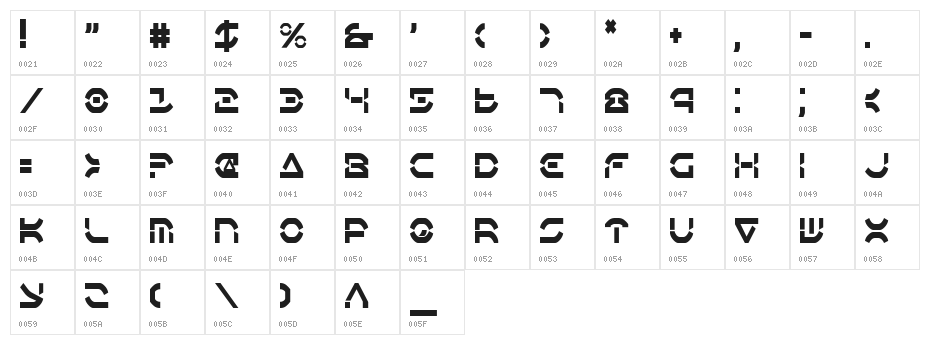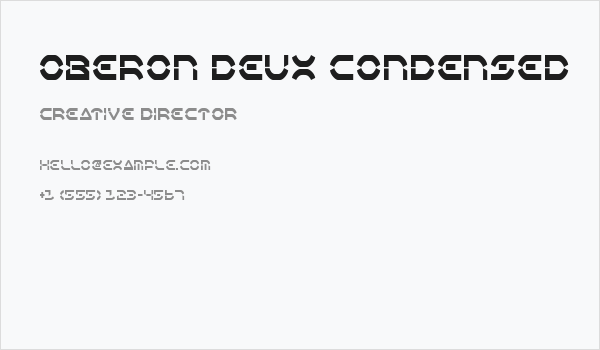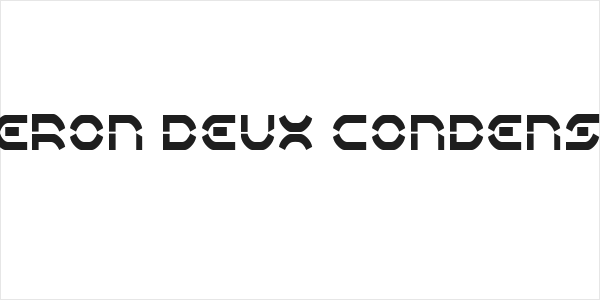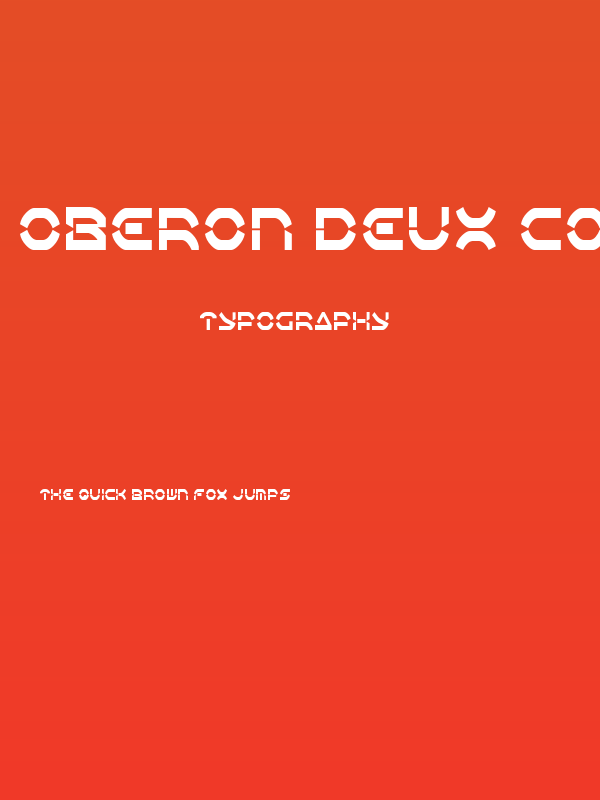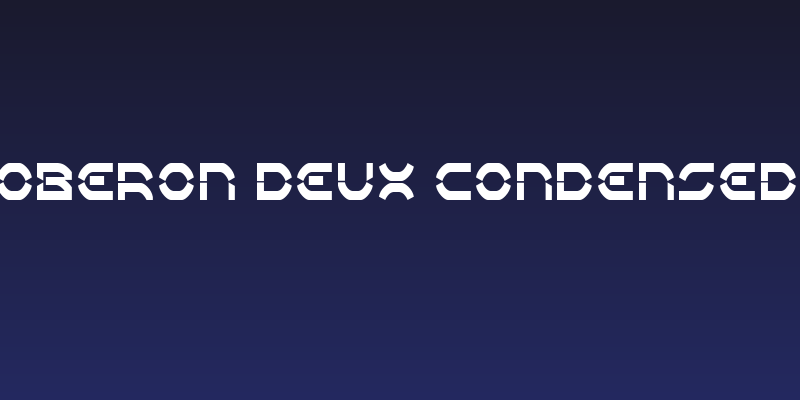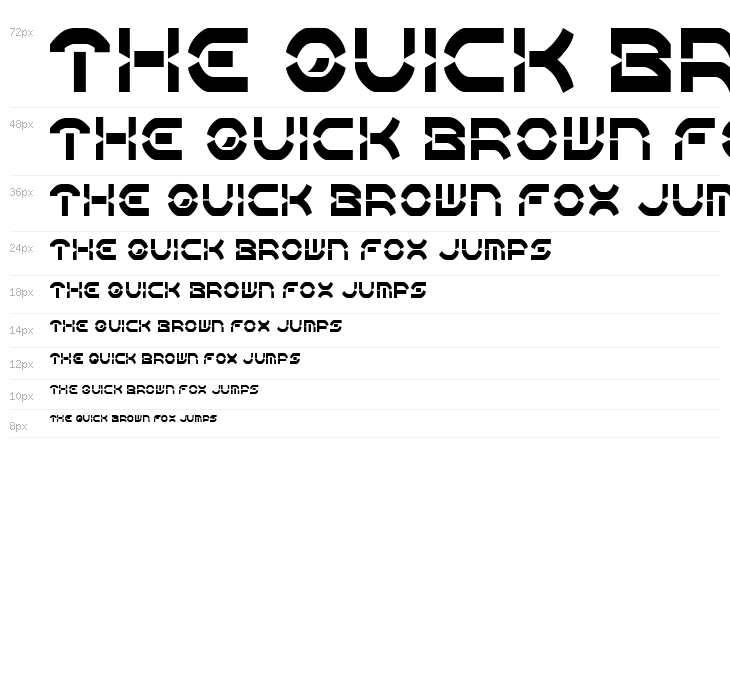
Oberon Deux Condensed Font
Oberon Deux Condensed Description
This font features a bold, geometric design with a futuristic and industrial feel. The characters are constructed with thick, angular lines and sharp edges, creating a sense of strength and modernity. The use of negative space within the letters adds a unique, almost stencil-like appearance, enhancing its visual impact. The font is highly stylized, with each character maintaining a consistent width, contributing to its condensed nature. This design choice makes it particularly suitable for creating a striking visual presence in any project.
| Proposed Projects | Ideal for branding, posters, and digital media where a strong, modern look is desired. |